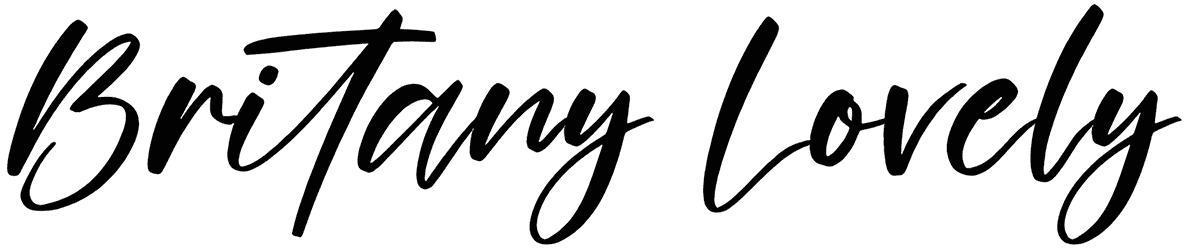
Britany Lovely Font
Britany Lovely is a script font perfect for writing Valentine cards and feminine titles. It will make your text elegant, friendly, and realistic. You can use it for any branding logo, posters, informal texts, runway, and fashion show headlines. This one has two fonts, and all of its characters take a continuous style when put in words.